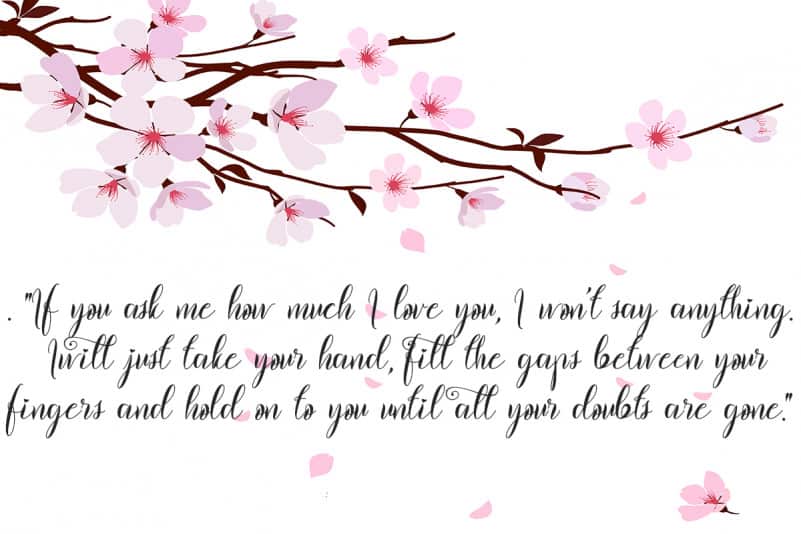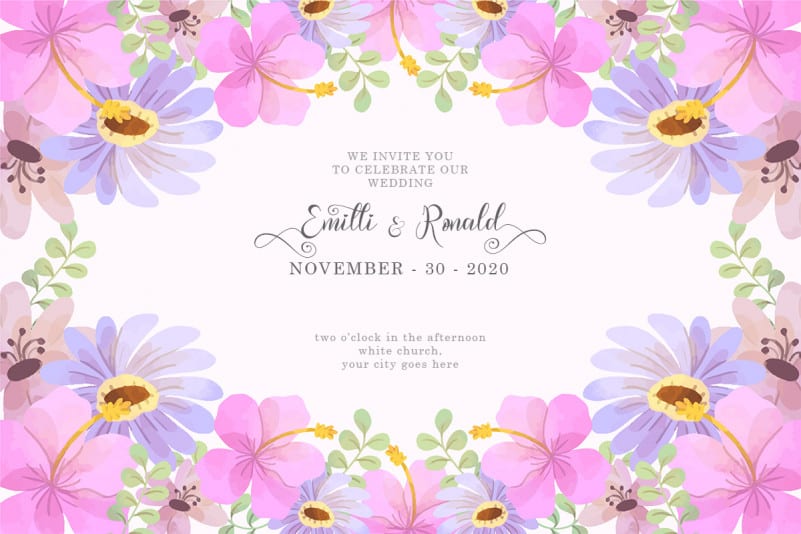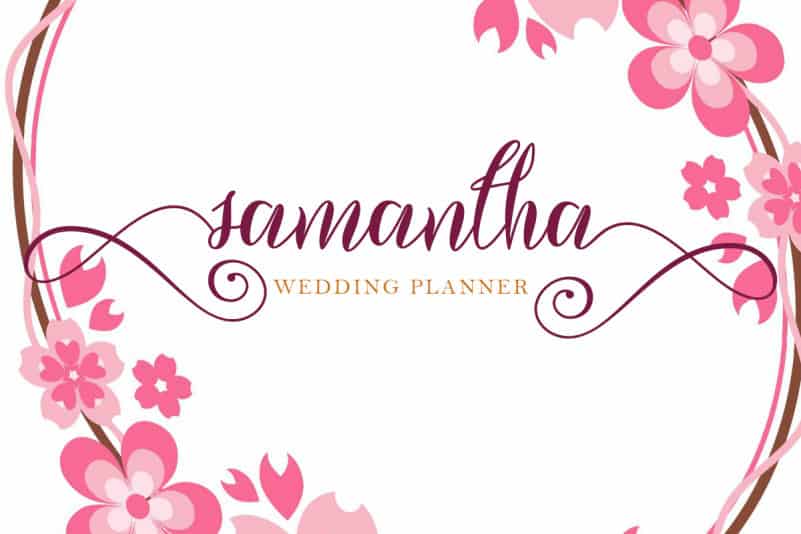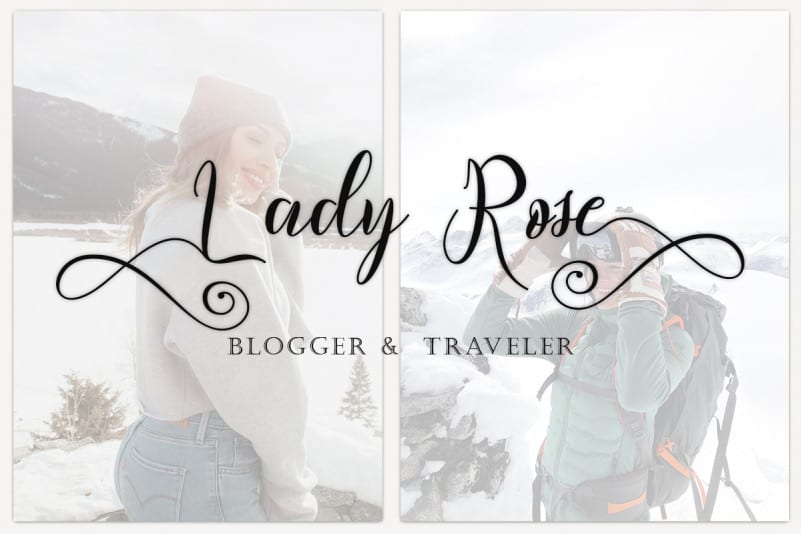
Bhaillia Calligraphy Font is a handwritten script font that is lovingly crafted to produce outstanding work. This font is very beautiful and elegant which is suitable for all kinds of your work. This font is perfect for all wedding needs (wedding invitations, wedding photography, decorations, and other wedding designs). It is also suitable for promoting your business (hotels, villas, vacation spots, products, services or other promotions. Also suitable for promo updates, logos, branding, posters, or status updates on social media, making romantic words, or quotes, autumn, christmas, valentine and other.